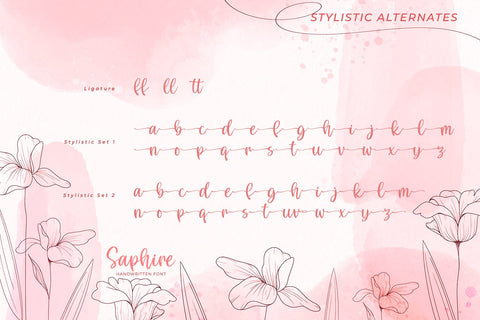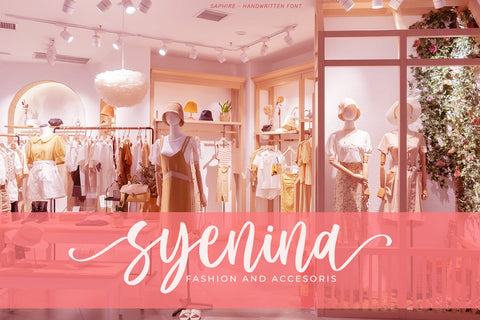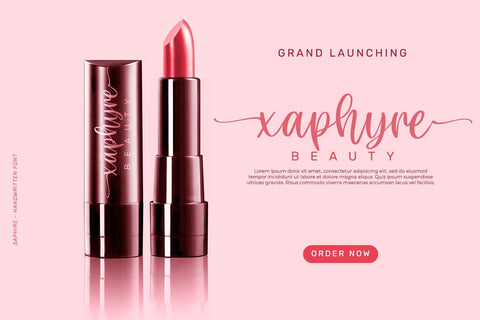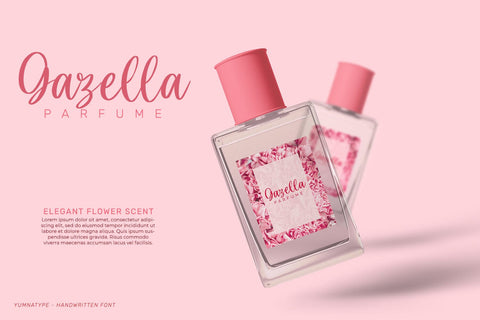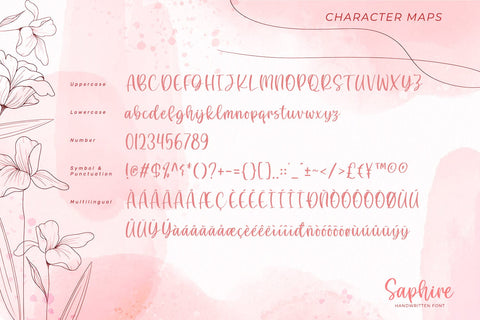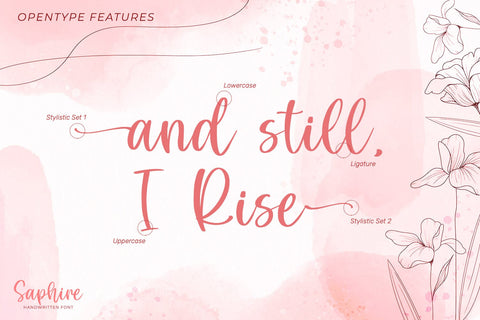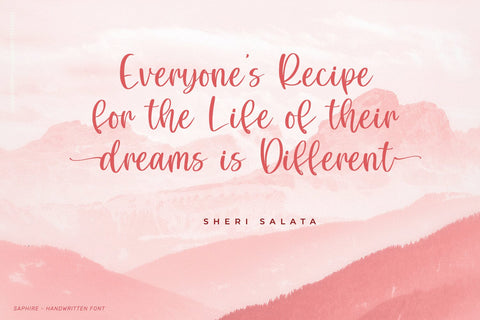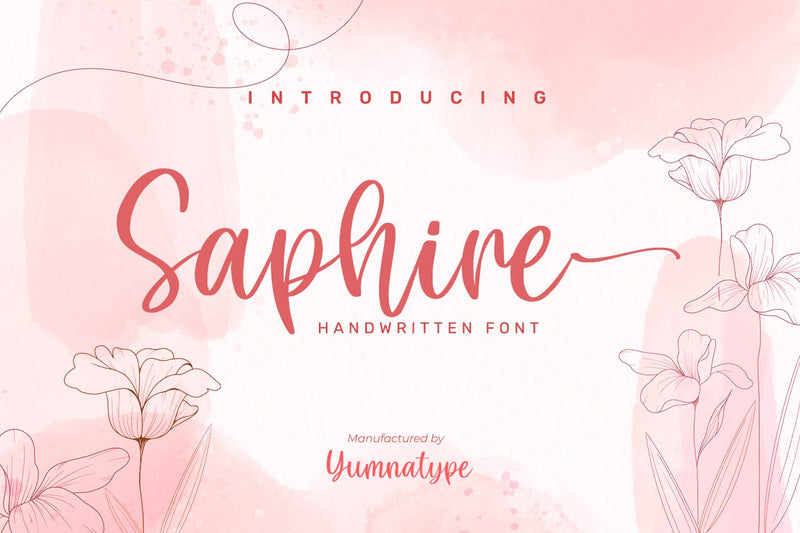
Saphire-Elegant Handwritten Font
Saphire is a elegant handwritten font with a natural and unique design will make your project more beautiful. The font is suitable for your branding project, printing, logos dan wedding.
- Standard Ligatures
- Stylistic Sets
- Numeral and Punctuation